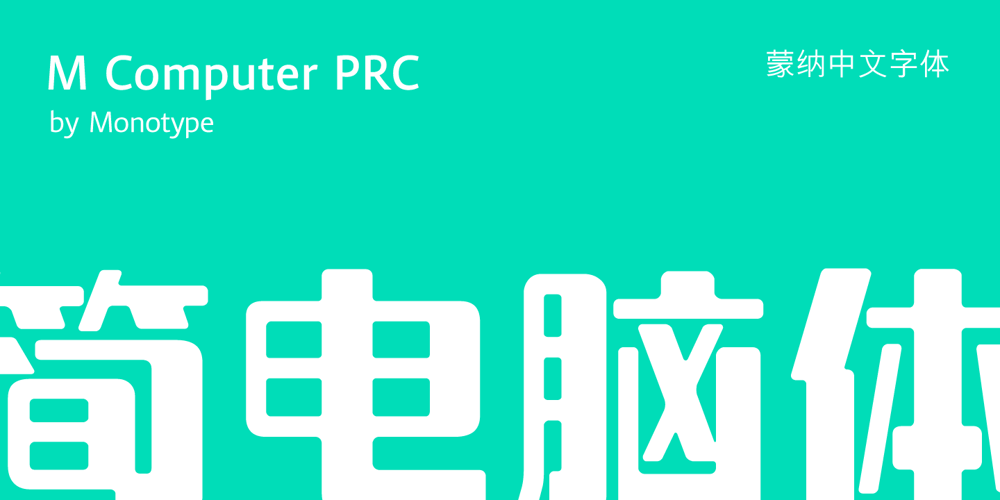
M Computer PRC Font Family was designed by Monotype HK Design and published by Monotype HK. M Computer PRC contains 1 styles and family package options. PRC series fonts are in Unicode encoding and consists covers GB 2312 character set. It conforms to GB12345 standard. The character glyphs are based on the regular simplified Simplified Chinese writing form and style. It is generally used in China Mainland PRC and Singapore.